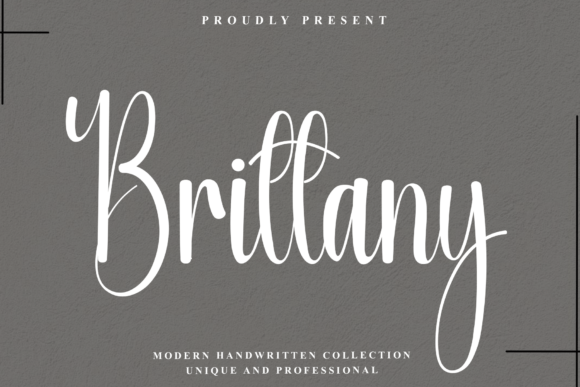
Get Ready to Fall in Love with Autumn’s Elegance
As a designer, you’ve likely experienced that magical moment when a font speaks directly to the essence of a project. For me, it was while brainstorming ideas for an autumn-themed campaign that I stumbled upon the enchanting Brittany Font. Its sophisticated script and high-contrast strokes immediately captured the essence of the season – warm, inviting, and full of character.
Developed to evoke the unique and professional visual voice of autumn, Brittany Font is a game-changer for designers looking to add an extra layer of sophistication to their work. With its vertically elongated letterforms and delicate hairline connectors, this font is a premier asset for seasonal marketing, artisanal food packaging, and boutique event invitations.
Brittany Font Key Features
• Font Family: Brittany, Brittany Italic, Brittany Bold, Brittany Bold Italic
• Unique Characteristics: This font features a modern, elegant design with a touch of sophistication, making it ideal for use in high-end fashion, luxury brands, and upscale publications
Brittany Font Review
As a designer, I was excited to dive into the Brittany Font and see what it had to offer. Here’s my honest review.
• Playful and Friendly Feel: The Brittany Font has a charming, approachable vibe that makes it perfect for casual projects and brand identities.
• High-Quality Rasterization: The font’s rasterization is top-notch, resulting in crisp and clear text at various sizes.
• Extensive Character Set: Brittany Font includes a wide range of characters, including ligatures, fractions, and even some stylish alternates.
• Limited Stylistic Options: While the font has some nice alternates, it could benefit from more stylistic options to give designers more creative freedom.
• Not Suitable for Formal Projects: Due to its playful nature, Brittany Font might not be the best choice for formal or professional projects where a more serious tone is required.
Overall, I think Brittany Font is a solid choice for designers looking for a friendly, approachable font. While it has some limitations, its strengths make it a great option for casual projects and brand identities. With a little more attention to stylistic options, I think Brittany Font could be even more versatile and appealing to designers.
Getting the Most Out of the Brittany Font
To get the most out of the Brittany font, use it in contexts where a clean, elegant, and modern look is desired. This font is ideal for:
• Wedding invitations and stationery
• Branding and marketing materials
• Editorial and publishing projects